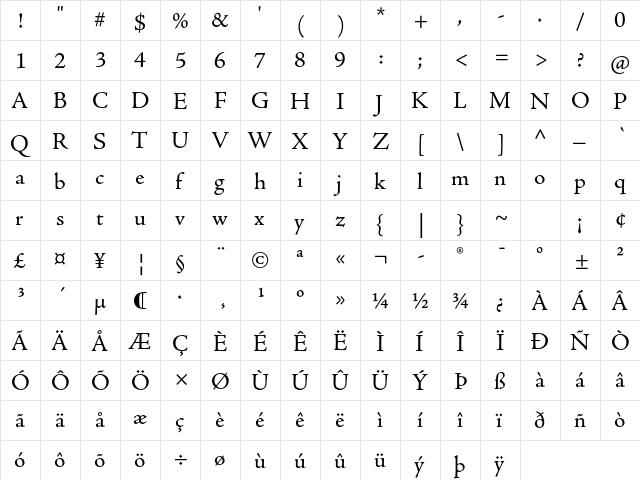
Adobe Jenson Pro Regular
| Designer | Robert Slimbach |
Design Context for Adobe Jenson Pro Typeface
Adobe Jenson Pro is a composed and adaptable typeface that performs quietly and consistently across a wide range of design contexts.